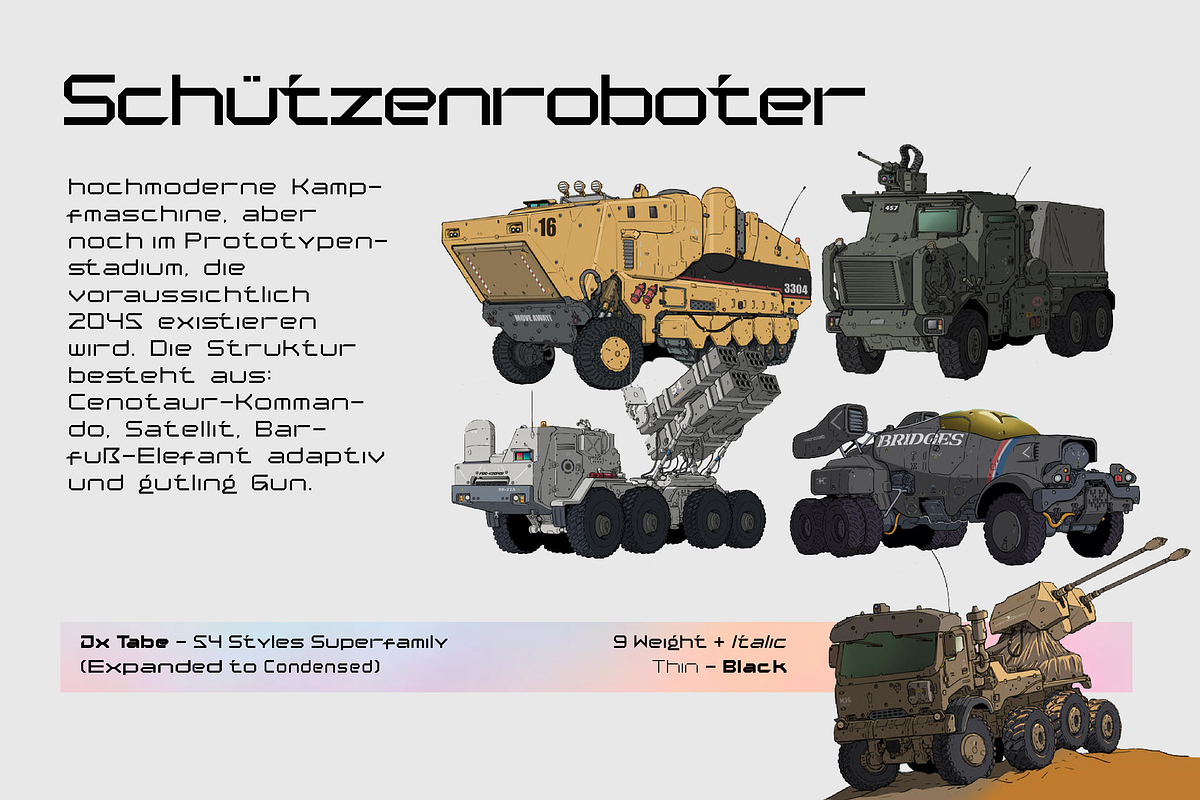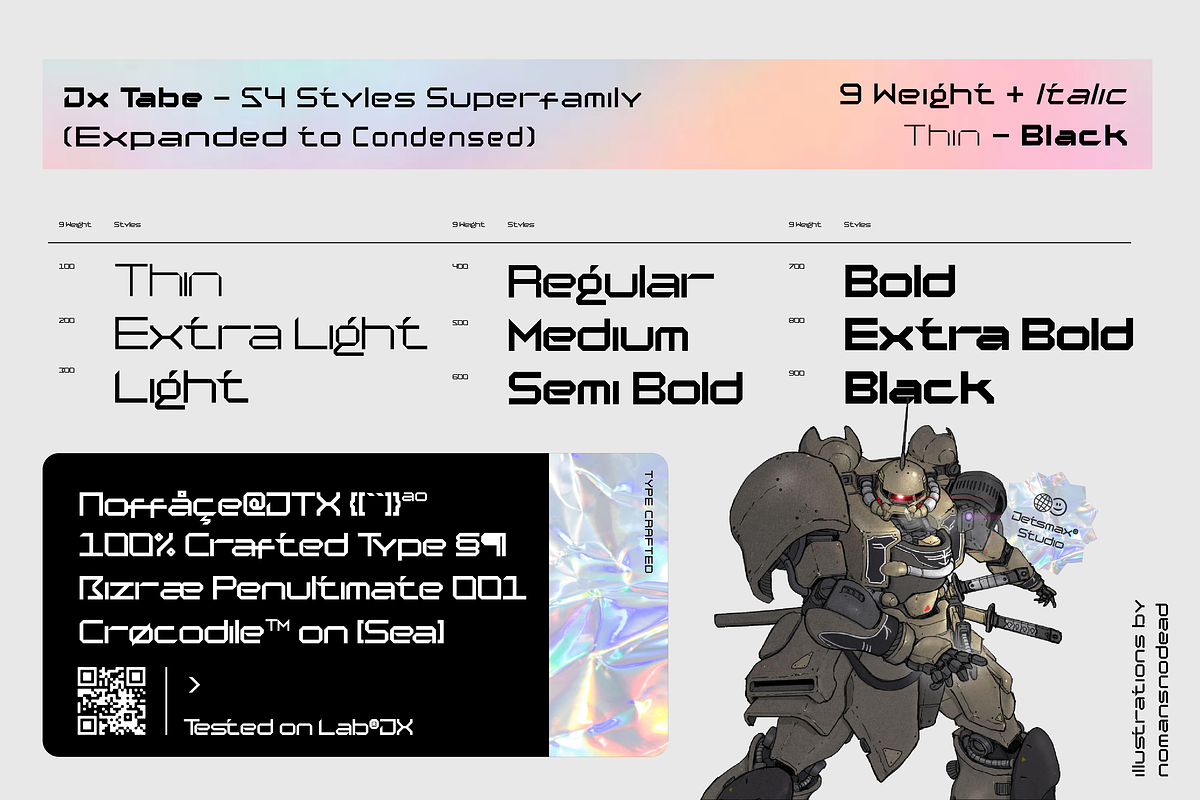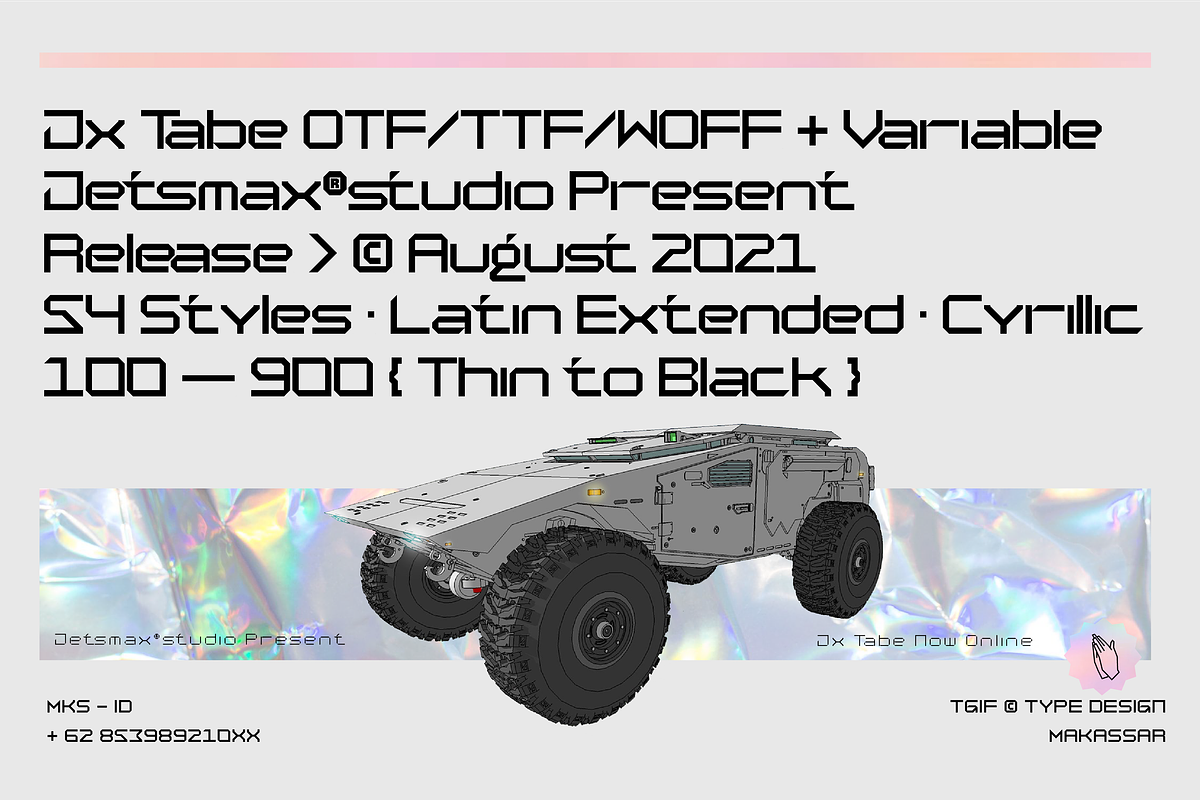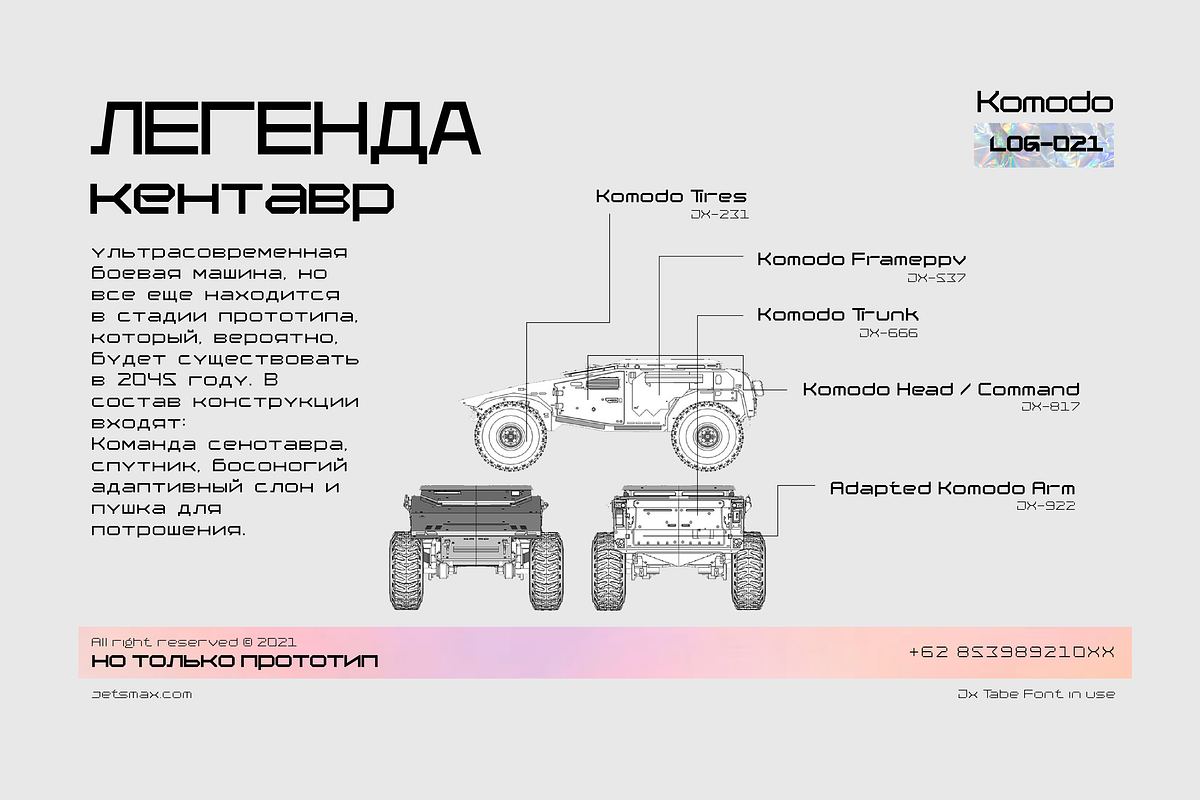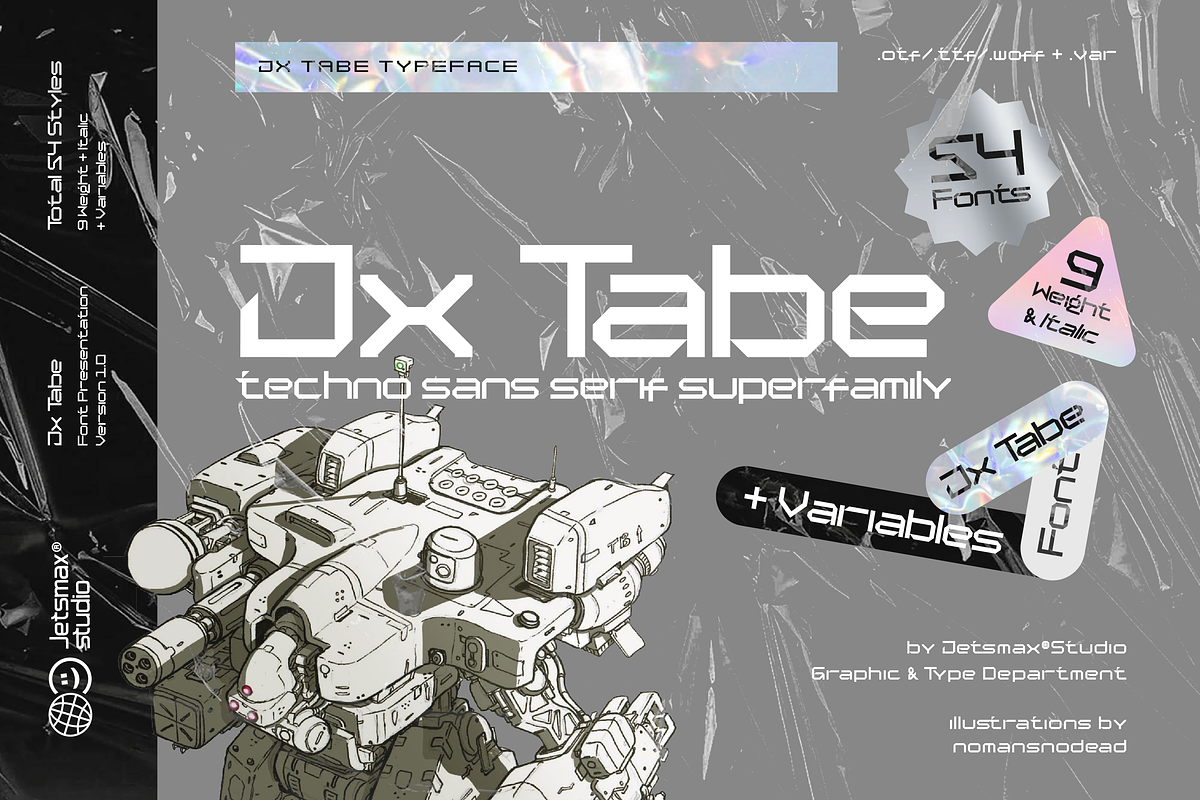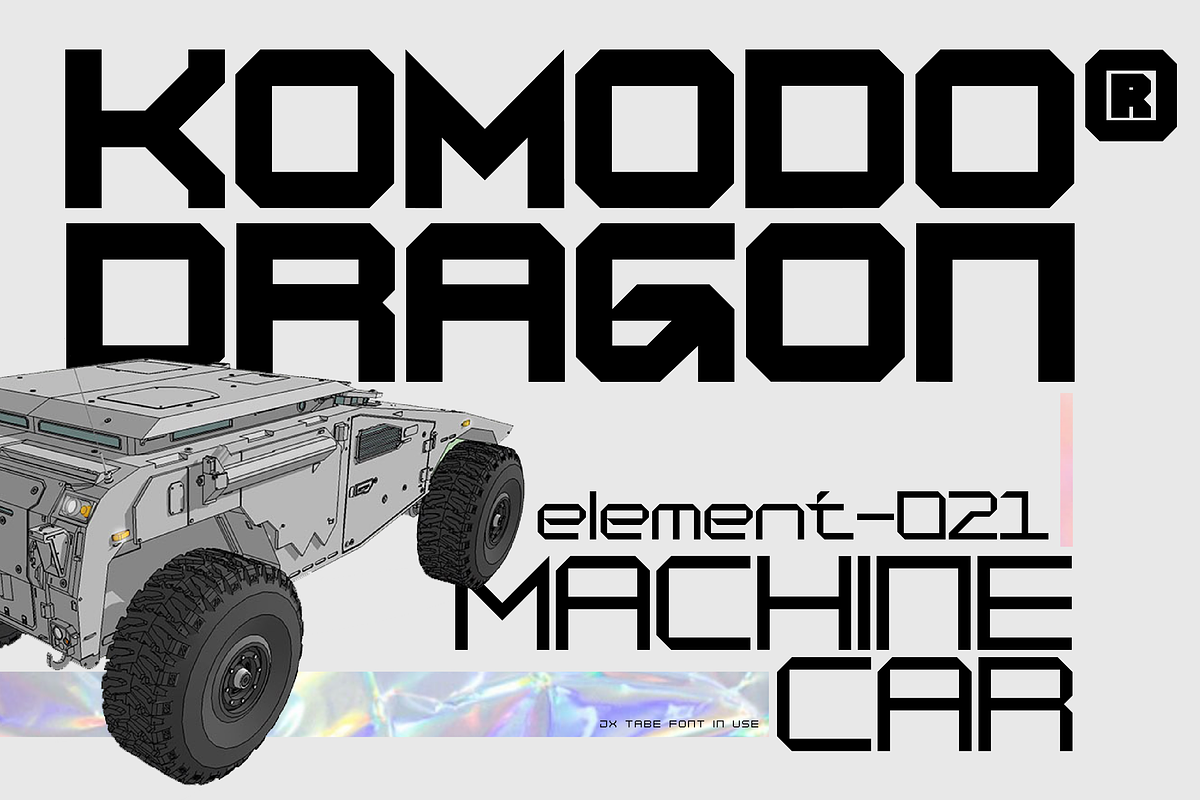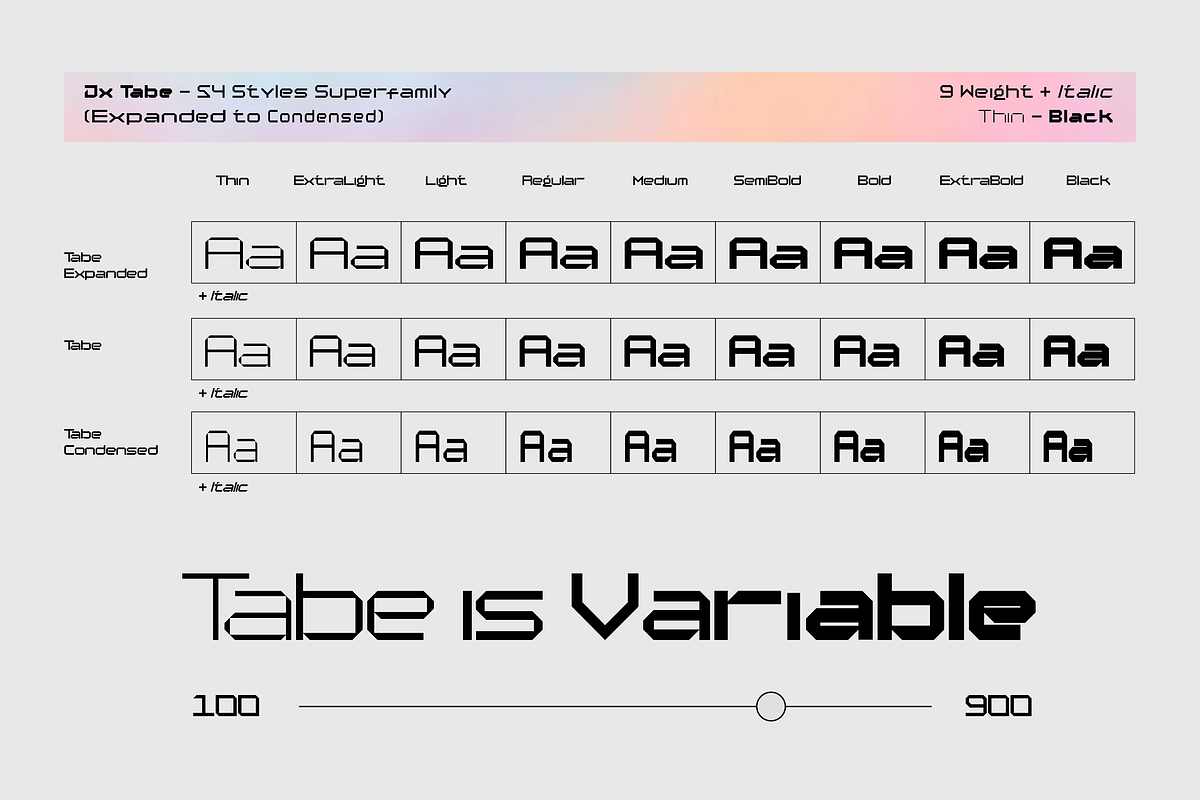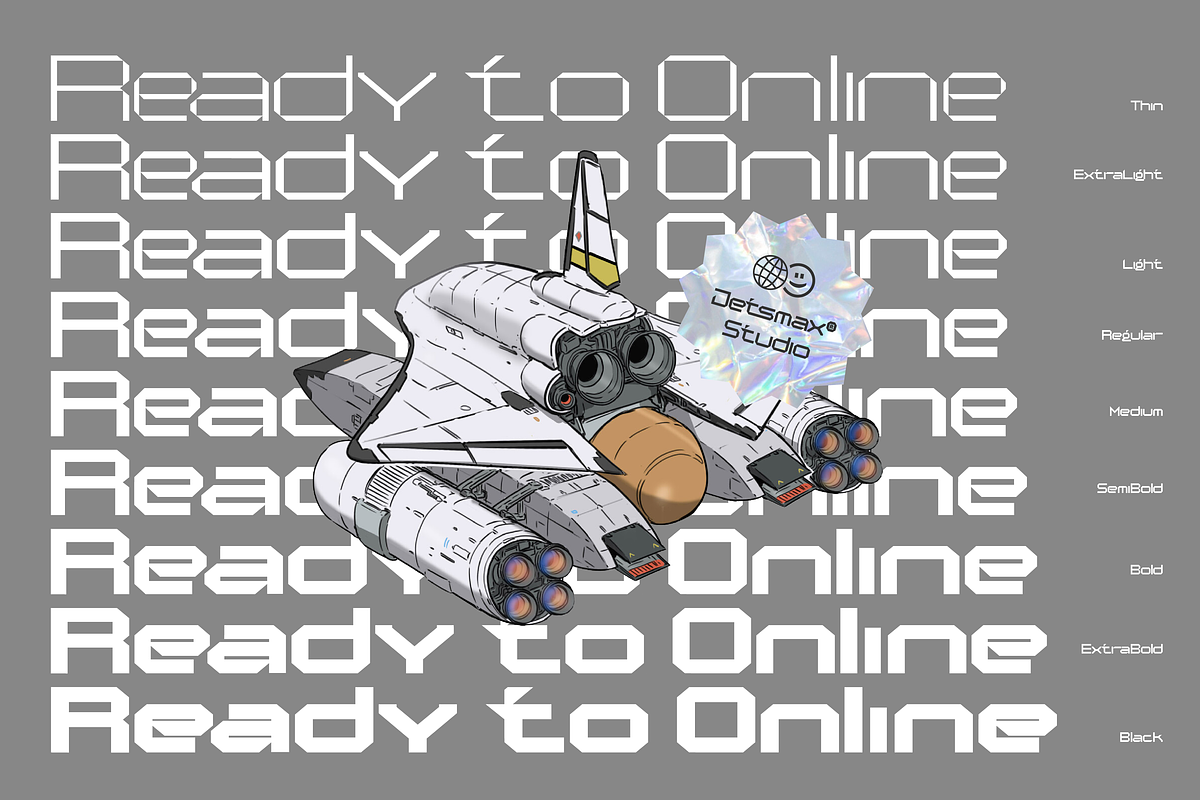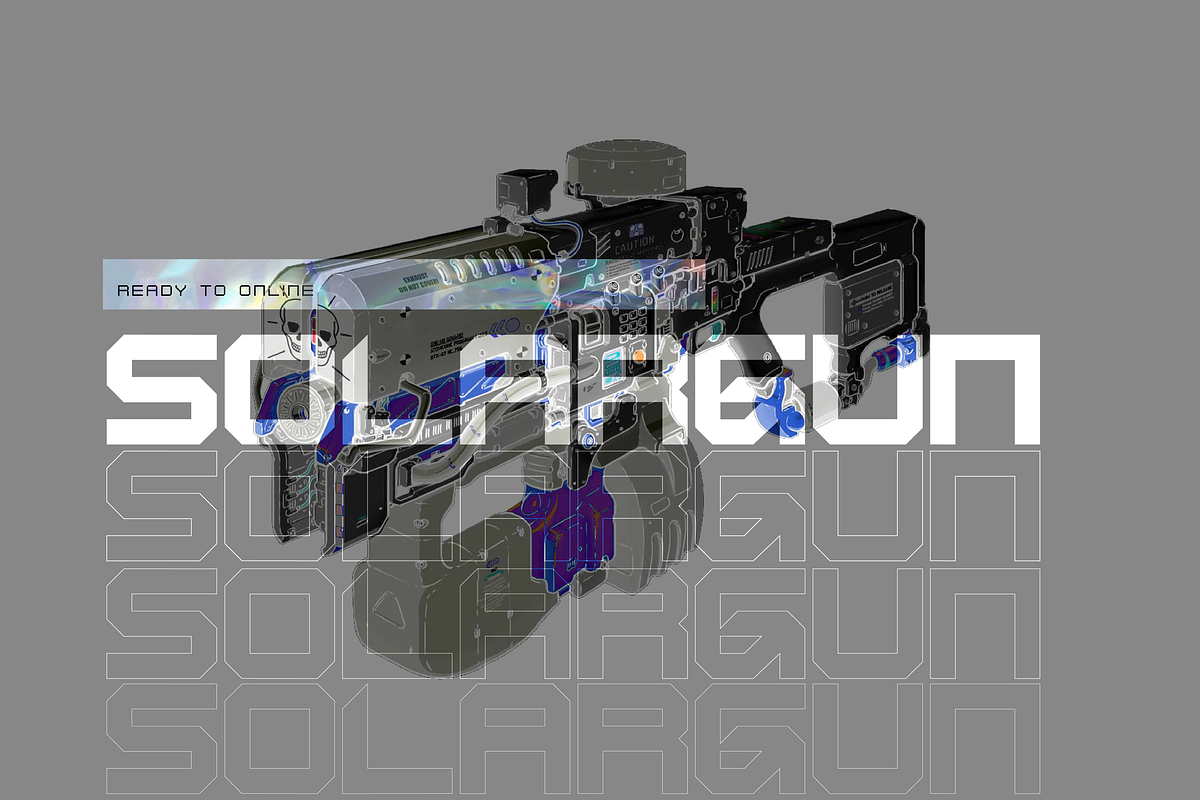
Jx Tabe is New techno sans serif typeface with super family. inspired by robotic, mecha and aethetic machine - a font suited for the future technology. This multi-purpose typeface will grab reader's attention with its stylish and neat design. With 9 Weight + Italic and 2 Width Condensed and Expanded, With total 54 styles its a timeless workhorse for many possible application from branding to editorial.
- PUA Encoded Characters – Fully accessible without additional design software. Fonts include multilingual support for; Afrikaans, Albanian, Catalan, Danish, Dutch, English, French, Hungarian, Icelandic, Italian, Spanish, Portuguese, German, Swedish, Norwegian, Polish, Indonesian, Turkish, Zulu, Belarusian, Bulgarian, Kazakh, Kyrgyz, Macedonian, Montenegrin, Russian, Serbian, Turkmen, Ukrainian, and Uzbek